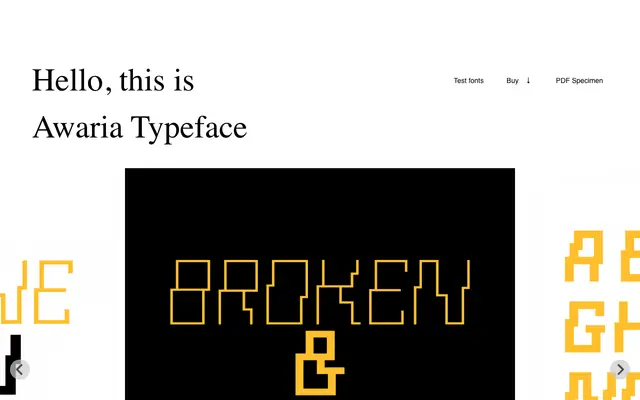
Awaria
An uppercase-only display typeface from Polish foundry Laïc, with pangram support indicating full Polish Latin character coverage.
An uppercase-only display face from Warsaw-based foundry Laïc, whose name references the Polish word for a breakdown or failure. The typeface supports full Polish Latin characters, as demonstrated by the Polish pangram 'Zażółć gęślą jaźń'. Limited detail is available from the page, but the uppercase-only constraint points to a purpose-built headline or identity face.
The name 'Awaria' (Polish for 'breakdown' or 'failure') and the uppercase-only nature suggest an expressive display typeface, likely with a distinctive or distressed character suited to headline use.